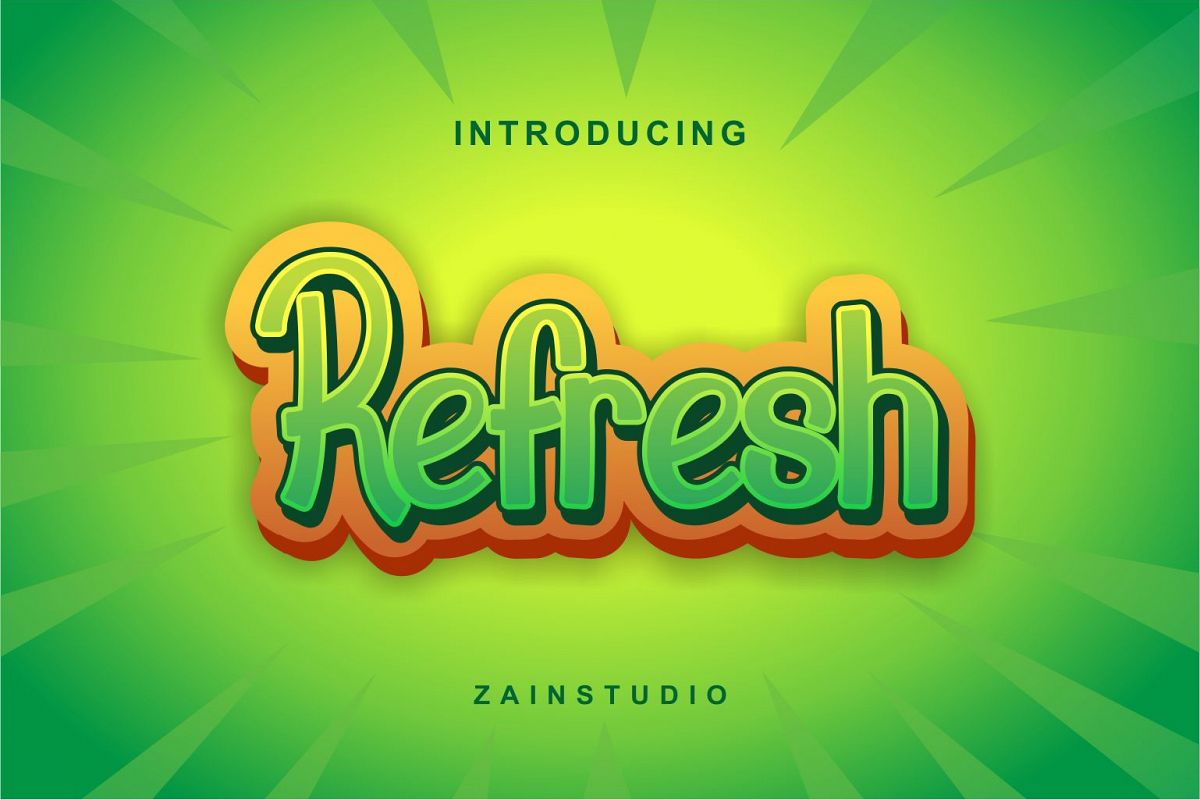
Refresh Display Font
Refresh
Refresh is a cute display typeface. comes with multilingual character. delivers a playful, dynamic and friendly font experience. It will turn any design idea to create an unique design.